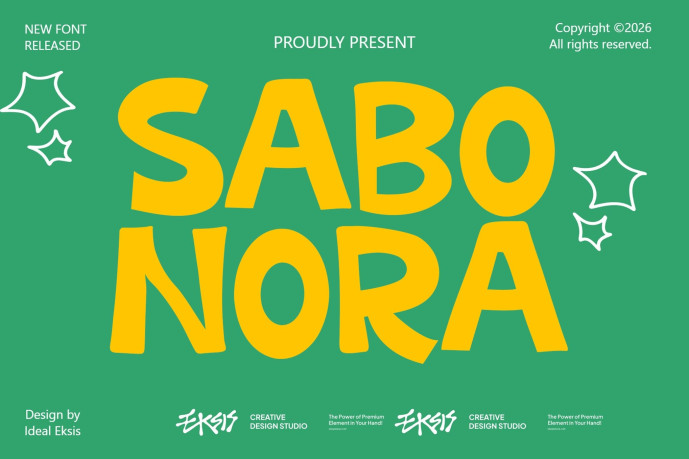
Sabo Nora Display Font
Designer: Idealx
Sabo Nora Display Font is a heavy-weight display font characterized by its chunky, irregular letterforms and organic, hand-drawn aesthetic. The glyphs feature soft, rounded terminals and varying stroke widths that create a dynamic and energetic rhythm. Its high-impact presence is achieved through tight kerning and thick, solid strokes that minimize internal negative space. The overall vibe is cheerful and retro-inspired, making it ideal for eye-catching headlines, brand identities, and creative poster designs where a bold, friendly personality is required.